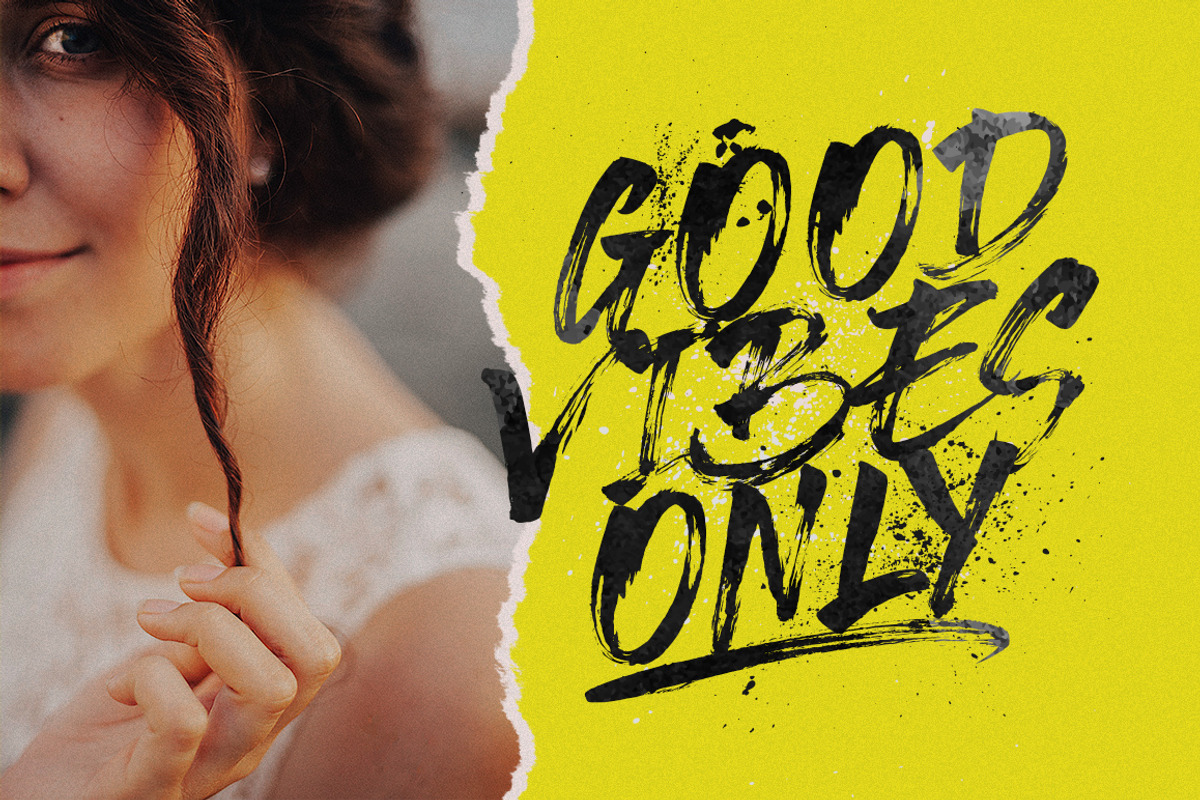
BRIDGERS BRUSH
Introducing!!
BRIDGERS!!!
A beautiful collection of UPPERCASE hand-painted brush font! With SWASHES which can be mixed up. Bridgers Brush character ideas for logos, name tag, handwritten quotes, product packaging, merchandise, social media, greeting cards and many more.
Language Support - We've added in a great deal of extra characters to support many different languages.